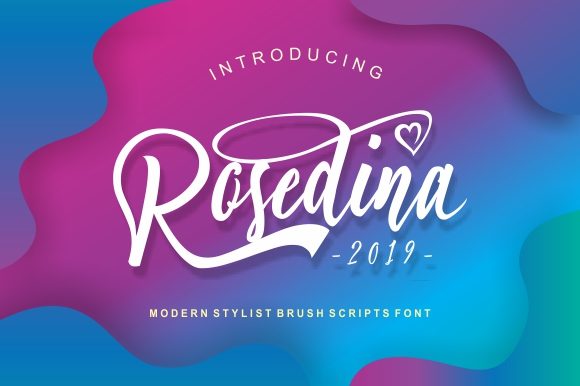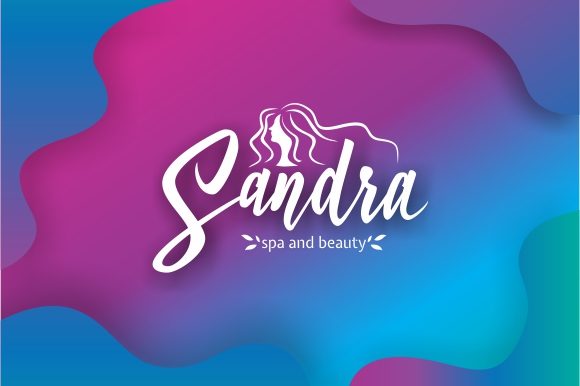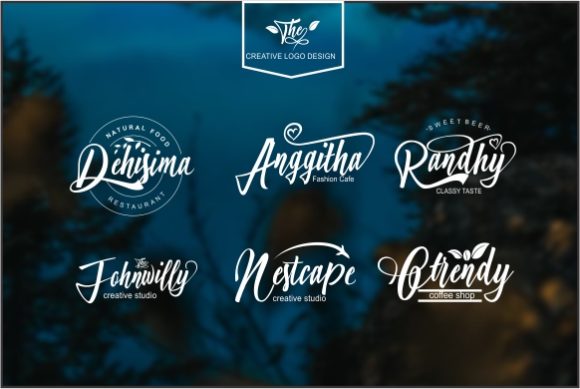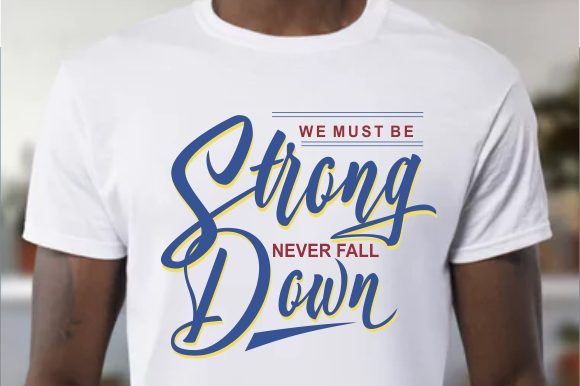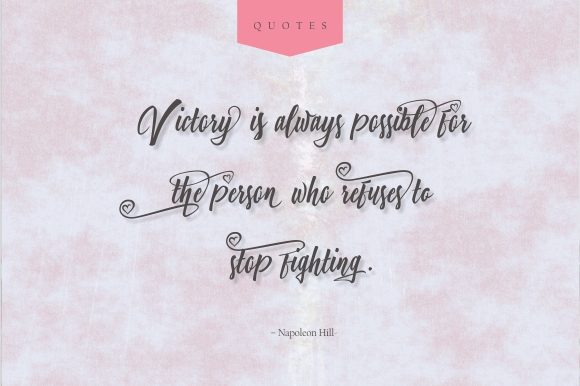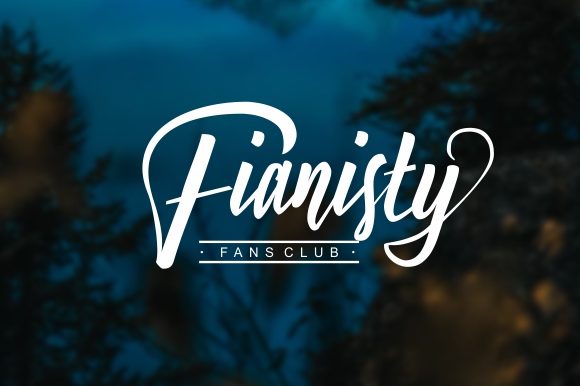
HomeScript FontsRosedina Font Script Fonts Rosedina Font FacebookXPinterestWhatsApp Rosedina Font Poster 2 Rosedina Font Poster 3 Rosedina Font Poster 4 Rosedina Font Poster 5 Rosedina Font Poster 6 Rosedina Font Poster 7 About Rosedina Font Rosedina is a playful and dynamic script that’s full of life. DOWNLOAD ON CREATIVE FABRICAThis font is sold and delivered by Creative Fabrica. Font Canyon may earn a commission if you buy through this link. People also explored Windy Font Psychedelic Bubble Two Font Valentine Font Baby Enter Font Shineon Font Dhellia Font Hillary Font Shark Attack Font Harold’s Pips 281 0 TagsRosedina Font Previous articleMorning Sunshine FontNext articleHollywise Font LEAVE A REPLY Cancel reply Comment: Please enter your comment! Name:* Please enter your name here Email:* You have entered an incorrect email address! Please enter your email address here Website: Save my name, email, and website in this browser for the next time I comment. Personal Use Free Hanifah Personal Use Free Read more about this font Ammanda Personal Use Free Read more about this font Covelia Personal Use Free Read more about this font Mallvirra Personal Use Free Read more about this font BLOG The 10 Best Handwriting Fonts to Add Personality to Your Designs 10 of the Best Handwriting Fonts for Adding Personality to Your Designs There will undoubtedly be no other better choice than handwriting fonts to give... How to Cut Any Font on Cricut: Convert a Font to SVG (Free) Modern Sans-Serif Fonts That Brands Love in 2025 Where to Buy American Fonts Online in 2024